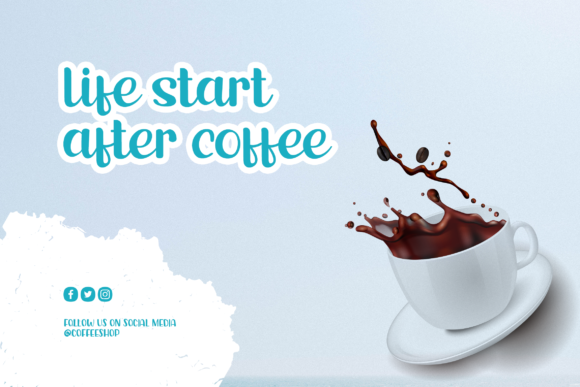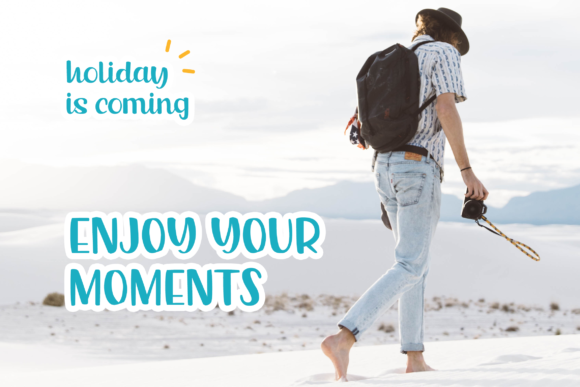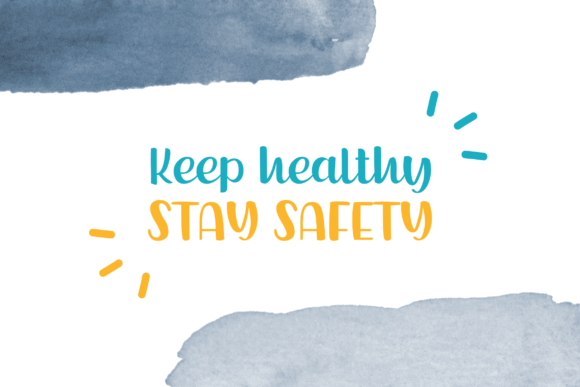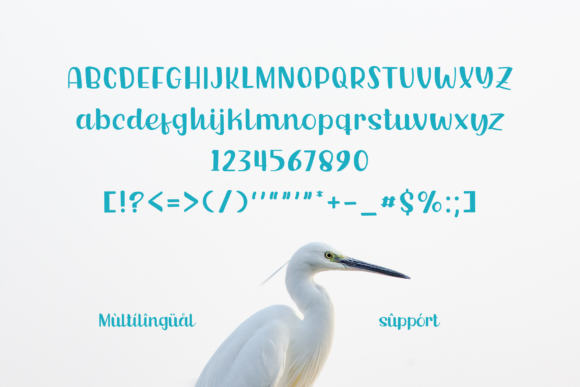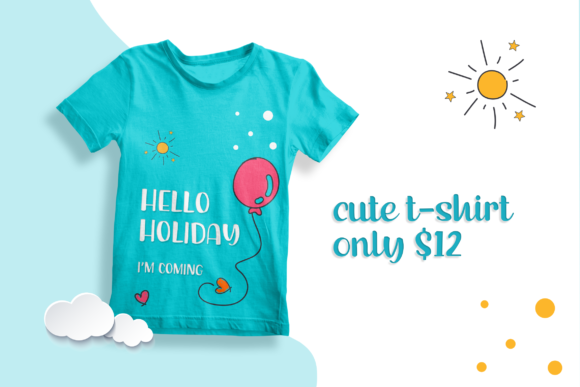
Introducing Healthy Life Font: The Sweet and Friendly Handwritten Font for Your Creative Projects
Are you a designer, crafter, or DIY enthusiast looking for a font that can add a personal touch to your creative projects? Look no further than Healthy Life Font, a sweet and friendly handwritten font that’s perfect for a wide range of designs. With its natural and unique style, Healthy Life Font is incredibly versatile and can be used for everything from branding and packaging to scrapbooking and party decorations.
The Unique Characteristics of Healthy Life Font
Healthy Life Font is a handwritten font that’s designed to look like it was written with love and care. Its natural and unique style makes it stand out from more traditional fonts, and its friendly vibe is sure to make your designs feel approachable and inviting. Whether you’re creating a logo, a poster, or a social media graphic, Healthy Life Font is the perfect choice for adding a personal touch to your work.
One of the things that sets Healthy Life Font apart is its incredible versatility. Because it’s a handwritten font, it can be used in a wide range of contexts, from formal and professional to casual and playful. Whether you’re designing for a client or working on a personal project, Healthy Life Font is a great choice for adding a touch of personality and whimsy to your designs.
The Benefits of Using Healthy Life Font in Your Designs
So why should you choose Healthy Life Font for your next design project? Here are just a few benefits of using this sweet and friendly font:
- Unique and eye-catching: Healthy Life Font is a one-of-a-kind font that’s sure to make your designs stand out from the crowd.
- Versatile: Because it’s a handwritten font, Healthy Life Font can be used in a wide range of contexts, from formal and professional to casual and playful.
- Easy to read: Despite its unique and playful style, Healthy Life Font is incredibly easy to read, making it perfect for designs that need to communicate a message.
- Customizable: With Healthy Life Font, you can add your own personal touch to your designs by adjusting the size, color, and style to fit your needs.
How to Use Healthy Life Font in Your Designs
Using Healthy Life Font in your designs is easy! Here are a few tips to get you started:
- Pair it with other fonts: Healthy Life Font looks great when paired with other fonts, such as bold and modern fonts or elegant and cursive fonts.
- Experiment with colors: Healthy Life Font looks great in a wide range of colors, from bright and bold to soft and pastel.
- Use it for headings and titles: Healthy Life Font is perfect for headings and titles, where its unique and playful style can really shine.
- Add your own personal touch: With Healthy Life Font, you can add your own personal touch to your designs by adjusting the size, color, and style to fit your needs.
Who Can Benefit from Using Healthy Life Font?
Healthy Life Font is perfect for anyone who wants to add a personal touch to their designs. Here are a few examples of designers and crafters who can benefit from using this sweet and friendly font:
- Graphic designers: Healthy Life Font is perfect for graphic designers who want to add a unique and playful touch to their designs.
- Scrapbookers: Healthy Life Font is a great choice for scrapbookers who want to add a personal touch to their pages.
- Party planners: Healthy Life Font is perfect for party planners who want to create custom decorations and invitations.
- Crafters: Healthy Life Font is a great choice for crafters who want to add a personal touch to their DIY projects.
| Author | namaracreativestudio |
In conclusion, Healthy Life Font is a sweet and friendly handwritten font that’s perfect for designers, crafters, and DIY enthusiasts who want to add a personal touch to their creative projects. With its natural and unique style, Healthy Life Font is incredibly versatile and can be used in a wide range of contexts. Whether you’re designing for a client or working on a personal project, Healthy Life Font is a great choice for adding a touch of personality and whimsy to your designs.